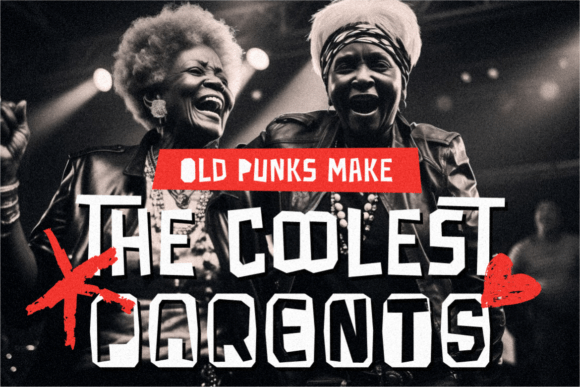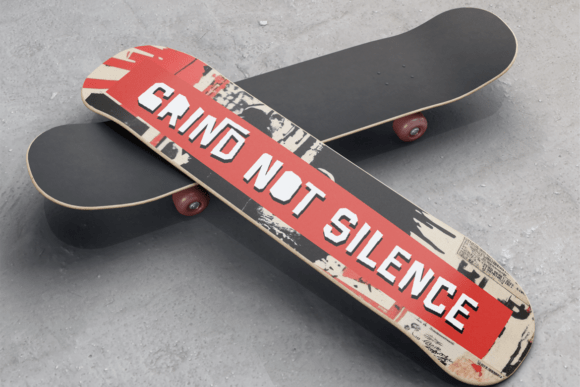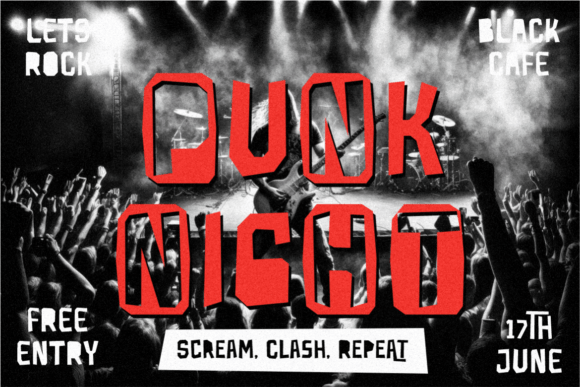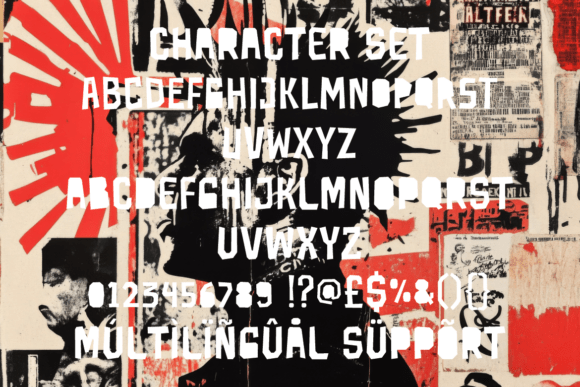
Unleashing the Energy of Roost Punk Font
You’re in the midst of a creative project, and you’re searching for that one font that captures the essence of rebellion and nonconformity. The perfect blend of edginess and raw energy can elevate your design from ordinary to extraordinary. Enter the Roost Punk Font, a bold and unapologetic display font that embodies the spirit of punk rock and urban street culture.
This dynamic font is not just a design element – it’s a statement piece that demands attention. With its intentionally distorted letterforms and irregular cuts, the Roost Punk Font is the ultimate choice for designers who want to make a bold statement. Whether you’re working on a music poster, a rock concert flyer, or a skateboard graphic, this font is sure to bring a high level of creativity and authenticity to your project.
As a valuable design resource, the Roost Punk Font offers a unique opportunity for designers to express themselves freely and push the boundaries of what’s possible. With its striking visuals and powerful layout, this font is a must-have for anyone looking to add a touch of rebellion and attitude to their creative project.
Key Features of Roost Punk Font
- Unique, distressed punk-inspired design, ideal for creative projects and edgy designs
- Perfect for designers and artists looking to add a touch of punk rock attitude to their creative projects
Honest Review: Roost Punk Font
As a designer, I’m always on the lookout for unique and high-quality design resources to elevate my creative projects. Recently, I stumbled upon the Roost Punk Font, and I’m excited to share my honest review with you.
- The Roost Punk Font is incredibly versatile and can be used for a wide range of design projects, from logos to posters.
- The font is well-designed and has a high level of detail, making it perfect for those who want a unique and eye-catching look.
- The transparent background option is a great feature, allowing designers to easily combine the font with other design elements.
- The font may not be suitable for all design projects, as it has a bold and edgy look that may not be fitting for more conservative designs.
- The font is a bit on the heavier side, which may affect readability in certain contexts.
Overall, I’m impressed with the Roost Punk Font and its potential to add a touch of creativity to any design project. While it may not be suitable for all projects, it’s a high-quality and versatile design resource that’s definitely worth considering.
For the best results, use the Roost Punk Font on a transparent background to create a unique and eye-catching design. Experiment with different font sizes and styles to add depth and interest to your design.
The Roost Punk Font is perfect for creative projects such as posters, flyers, and social media graphics. It’s also great for adding a touch of personality to your website or blog.
Is the Roost Punk Font a high-quality design resource?
Yes, the Roost Punk Font is a high-quality design resource that’s perfect for designers looking for a unique and creative font. The font’s bold, punk-inspired design makes it ideal for use in graphic design, web design, and other creative projects. With its free download and open-source license, the Roost Punk Font is a valuable addition to any designer’s toolkit.